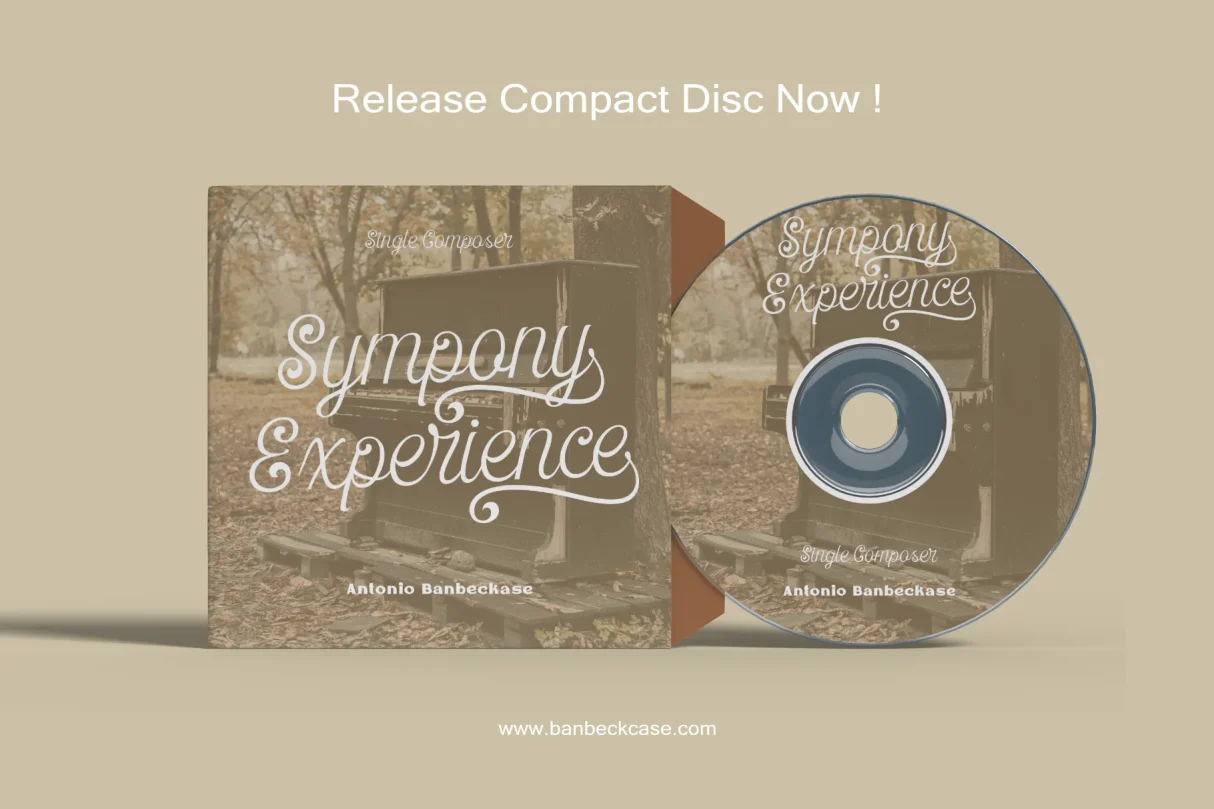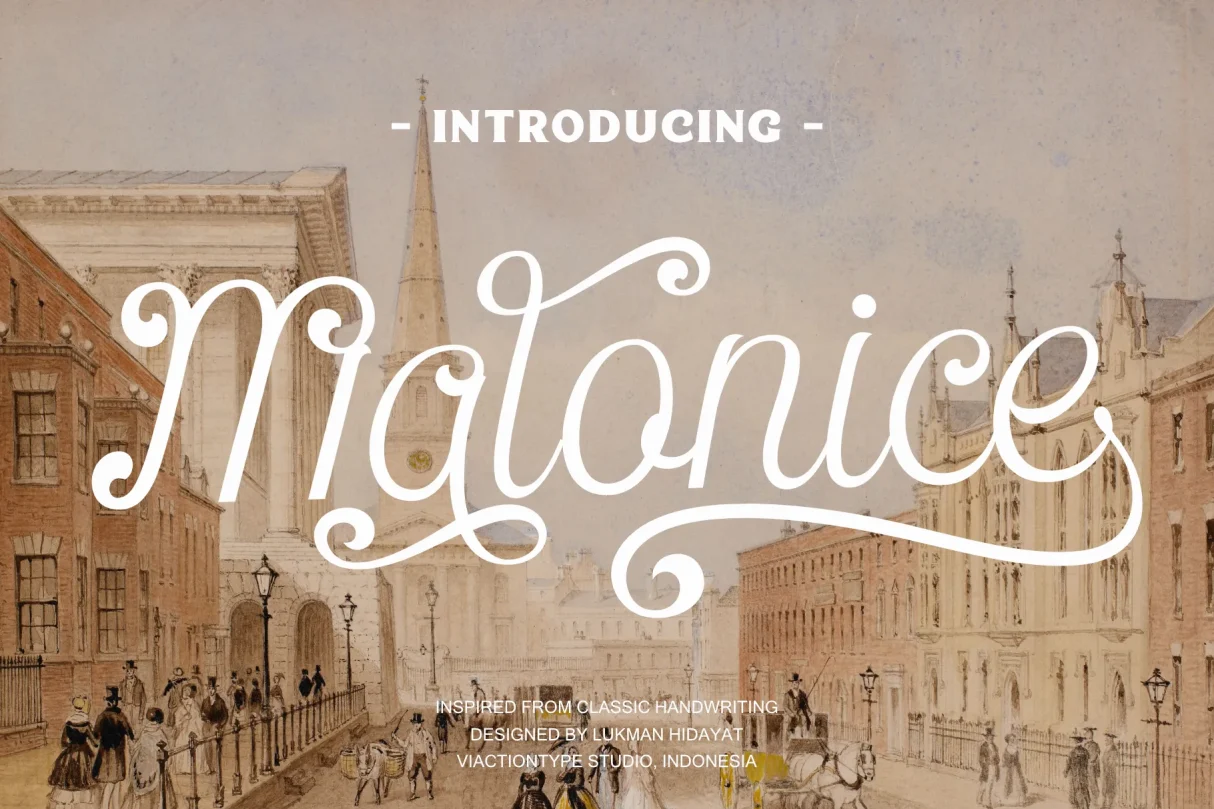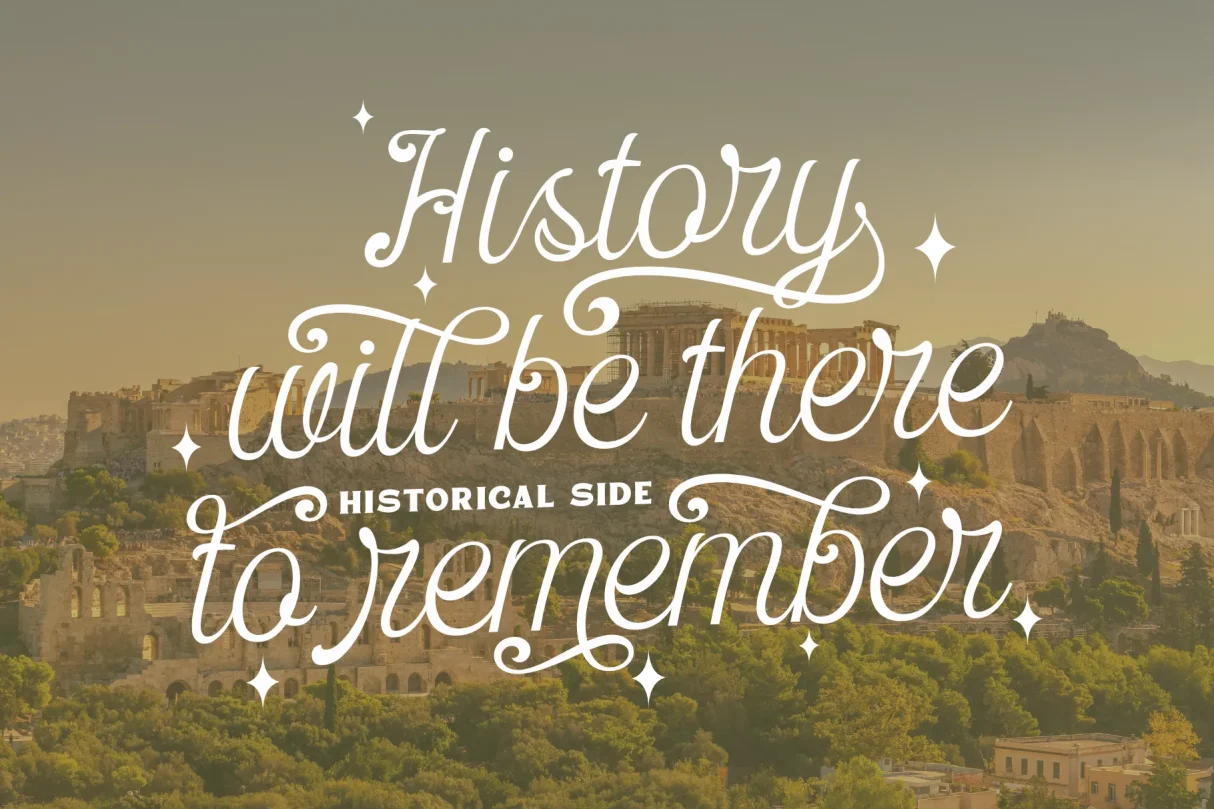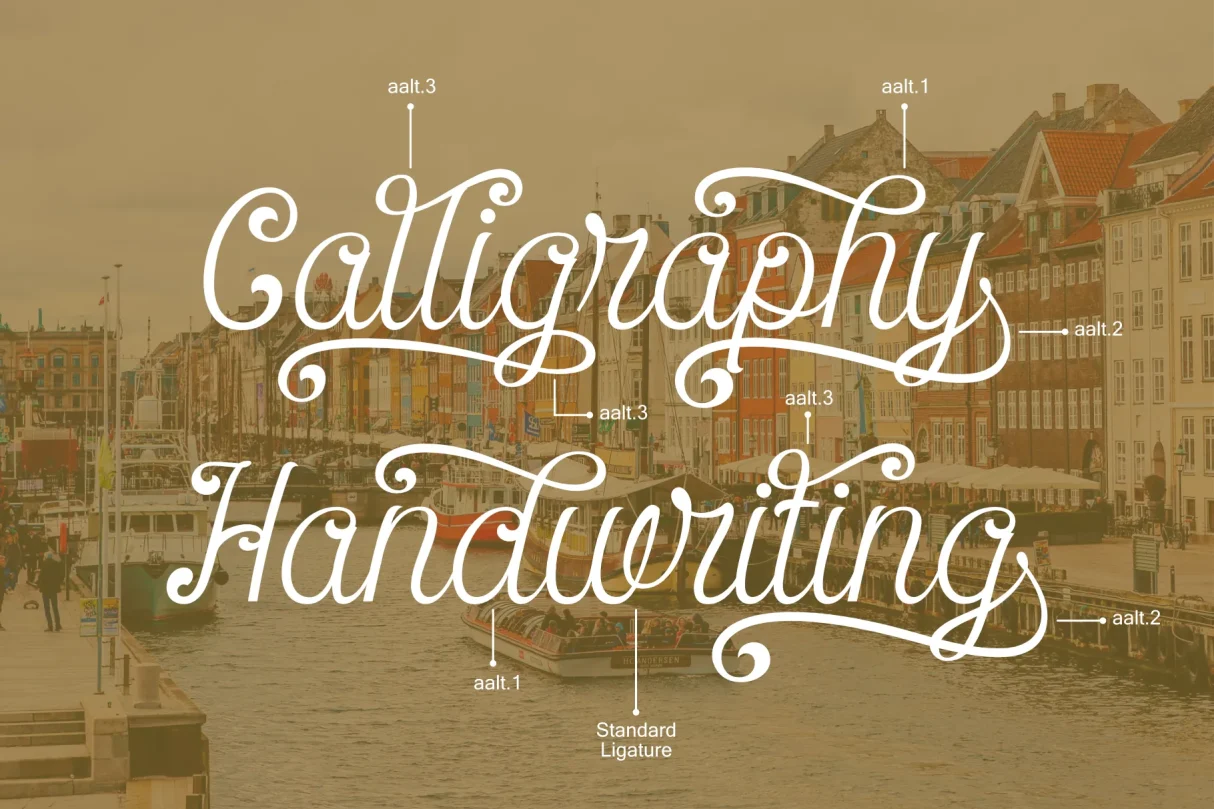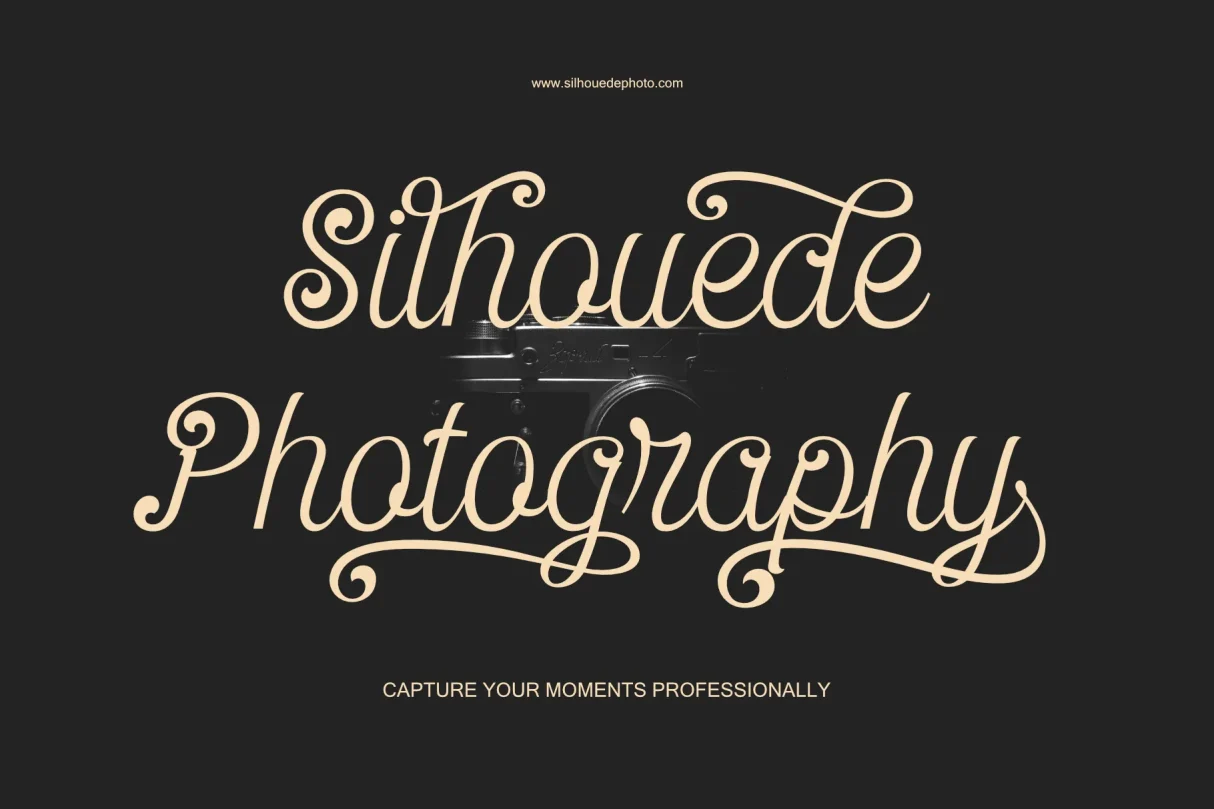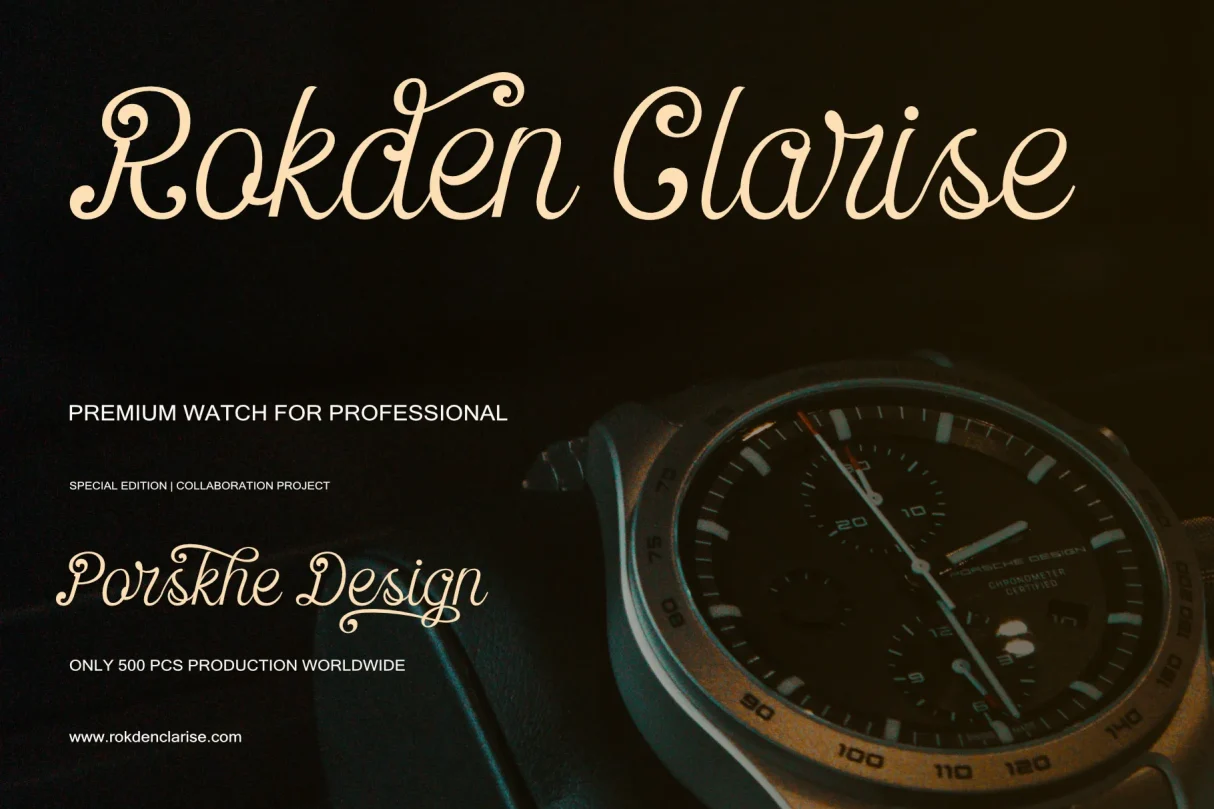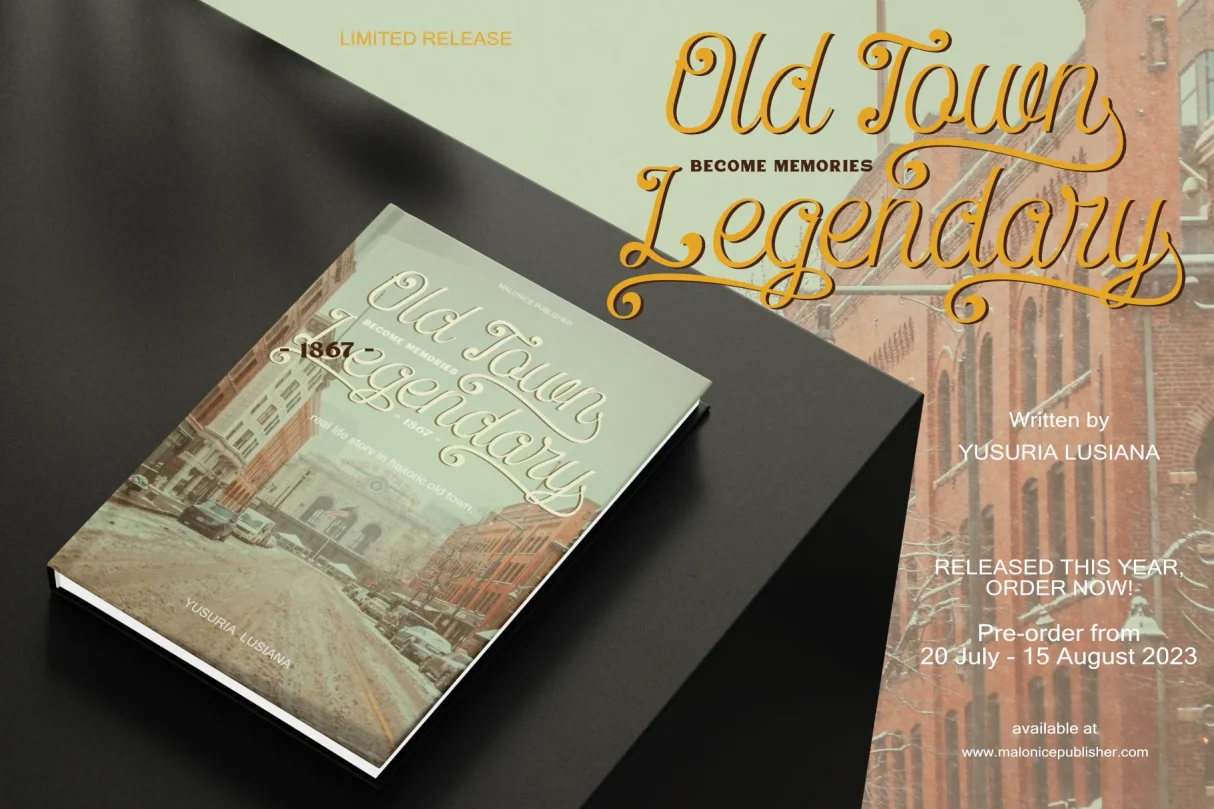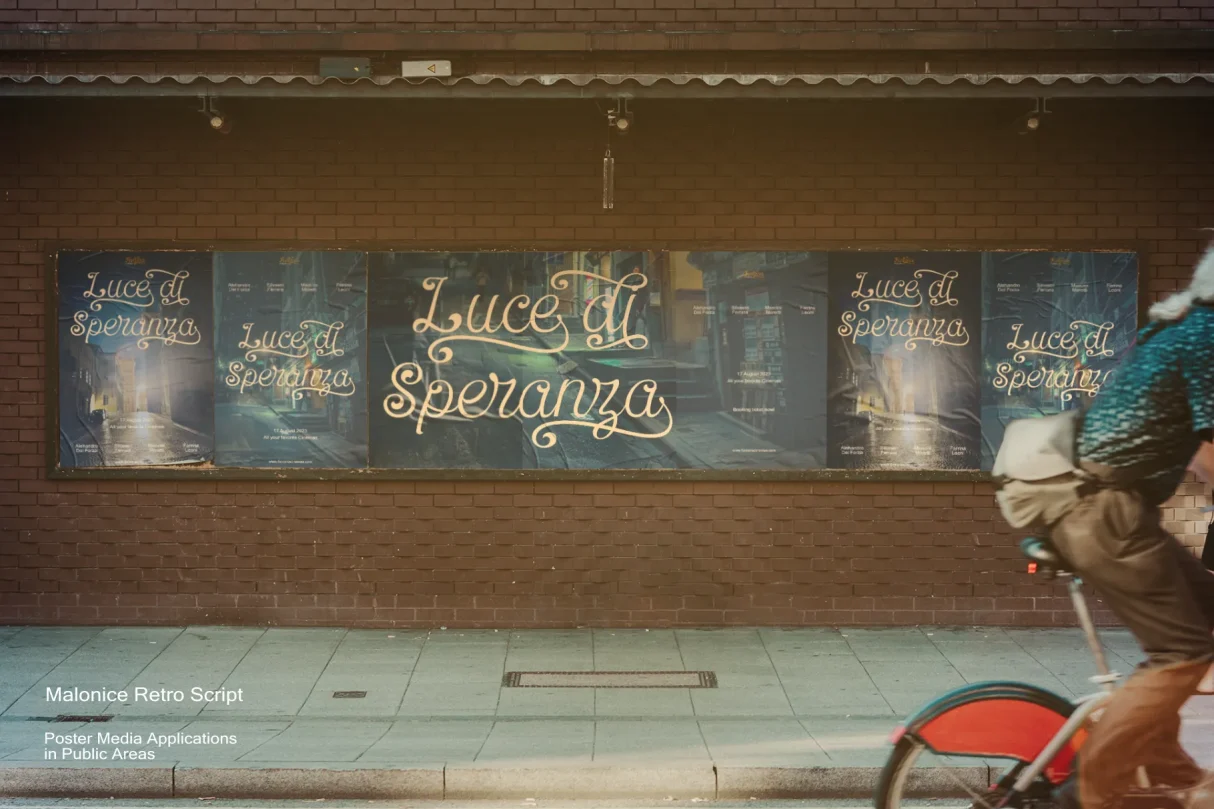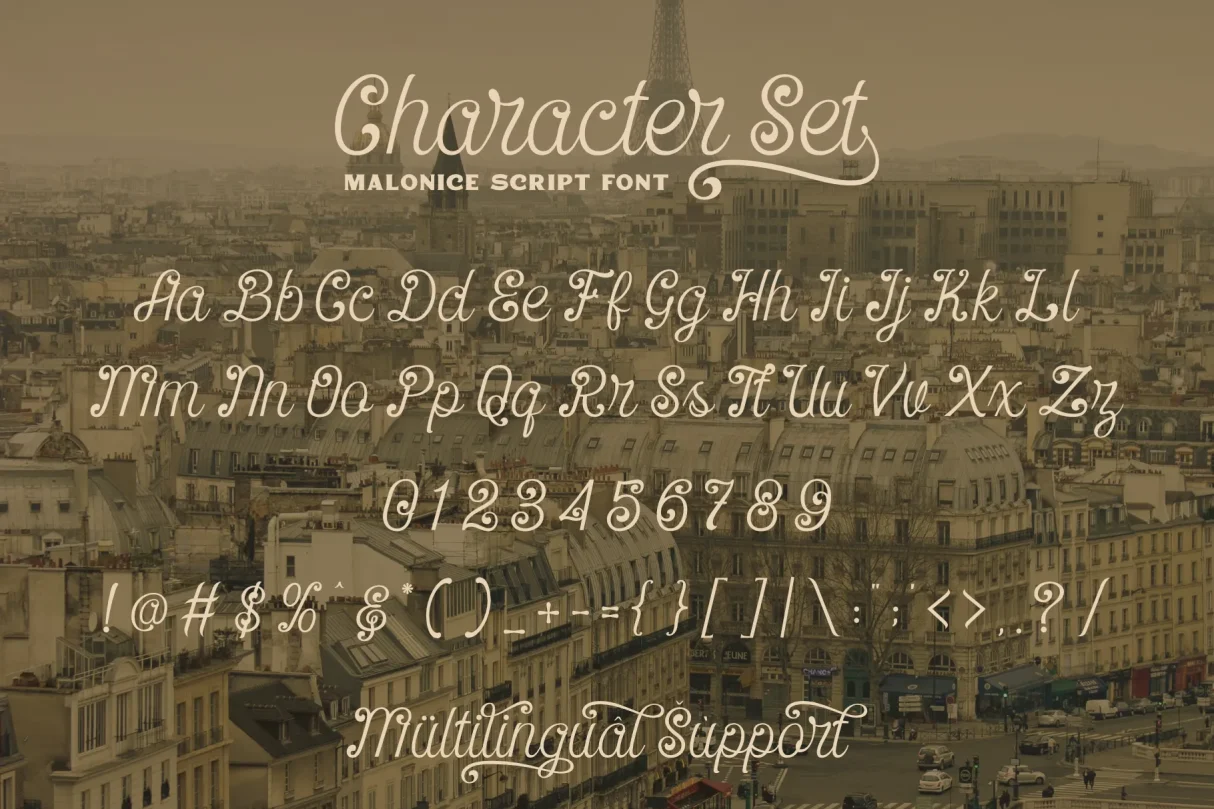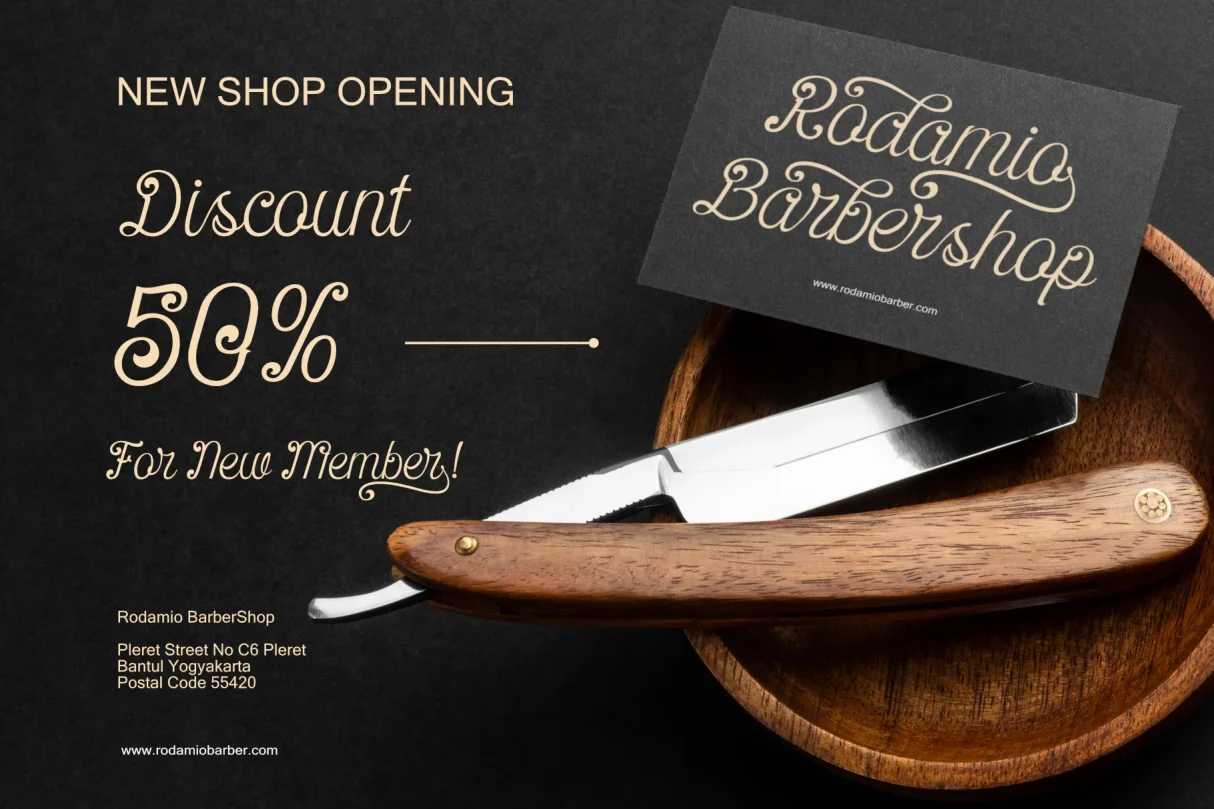
Malonice Retro Script
Introducing our Malonice Classic Script Font โ€“ a timeless blend of elegance and sophistication that adds a touch of vintage charm to your designs. Crafted with meticulous attention to detail, this font exudes a sense of timeless grace, making it the perfect choice for projects that demand a touch of classic refinement.
Our Malonice Classic Script Font boasts intricate letterforms that effortlessly capture the essence of traditional calligraphy. Each stroke is carefully crafted to deliver a seamless flow, creating a script that is both legible and visually captivating. Whether you’re working on wedding invitations, elegant branding, or any project that requires a touch of sophistication, our Malonice Classic Script Font is the ideal companion.
This font is designed to effortlessly elevate your creative projects, offering a perfect balance between traditional aesthetics and modern versatility. Its versatility shines through in a variety of applications, from digital designs to printed materials. Elevate your brand identity, invitations, or any creative endeavor with the timeless beauty of our Malonice Classic Script Font.
1. Timeless Elegance: Immerse your designs in the grace of traditional calligraphy with our Malonice Classic Script Font.
2. Intricate Detail: Every letter is meticulously crafted to ensure a seamless and visually appealing script.
3. Versatile Usage: Perfect for a wide range of projects, from wedding invitations to high-end branding.
4. Modern Adaptability: Strikes the perfect balance between classic charm and contemporary design trends.
5. Digital and Print Ready: Ideal for both digital and print applications, ensuring flexibility in your creative projects.
• Character Standard.
• Symbols & Pointing.
• Multilingual Support.
• Alternate Characters.
• Standard Ligatures.
Malonice – Retro Script
Designed by Lukman Hidayat
Malonice Script is a script font that was created based on inspiration from classic handwriting so it looks elegant and luxurious.